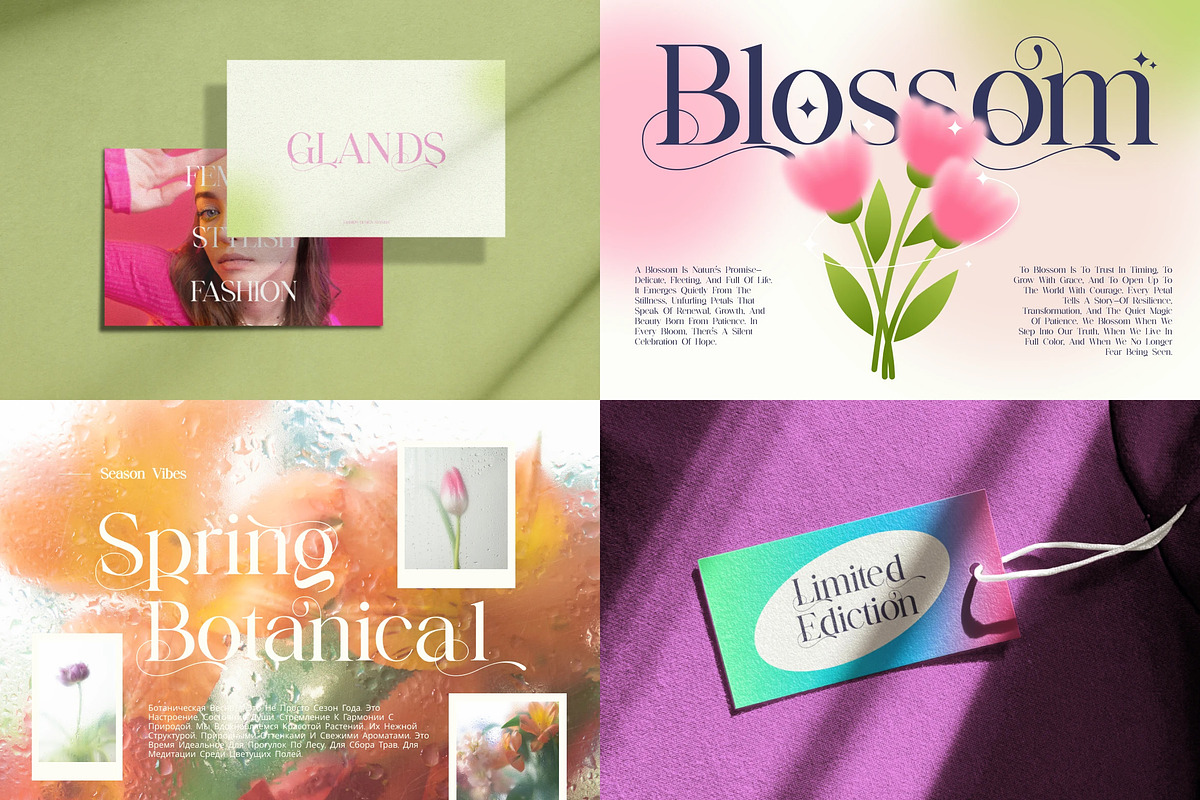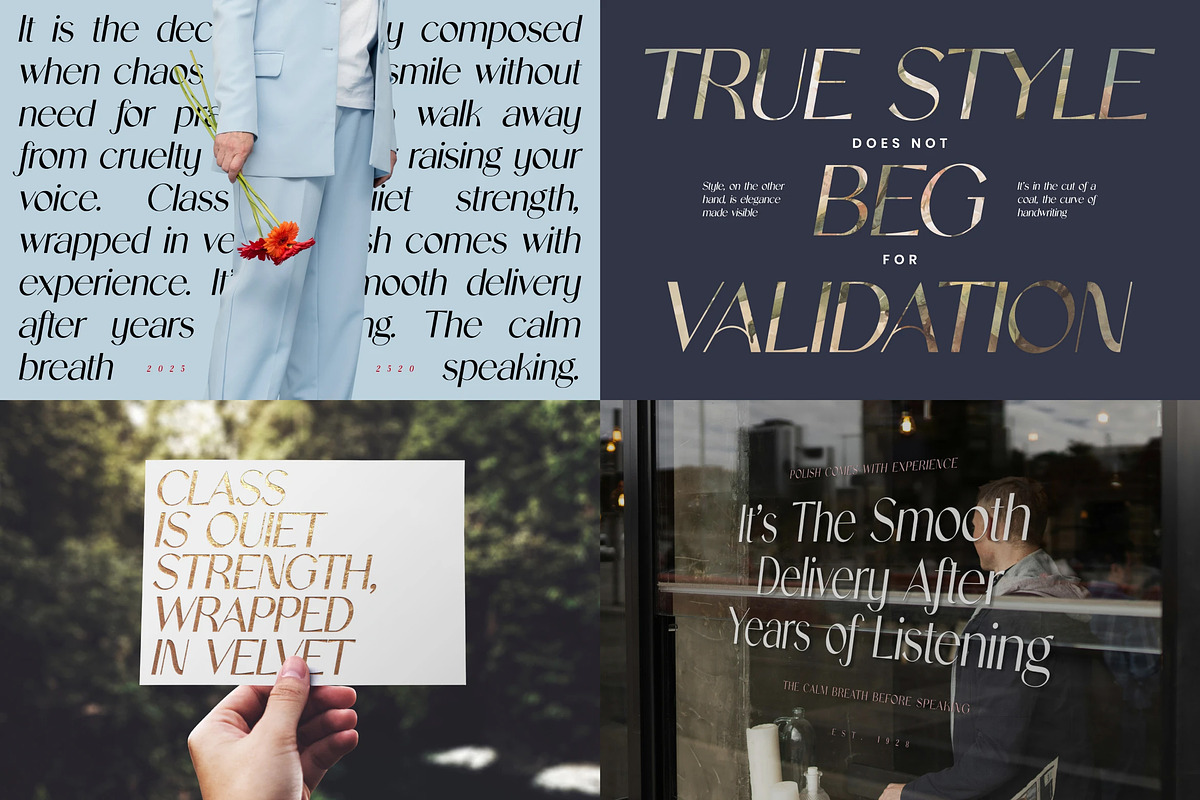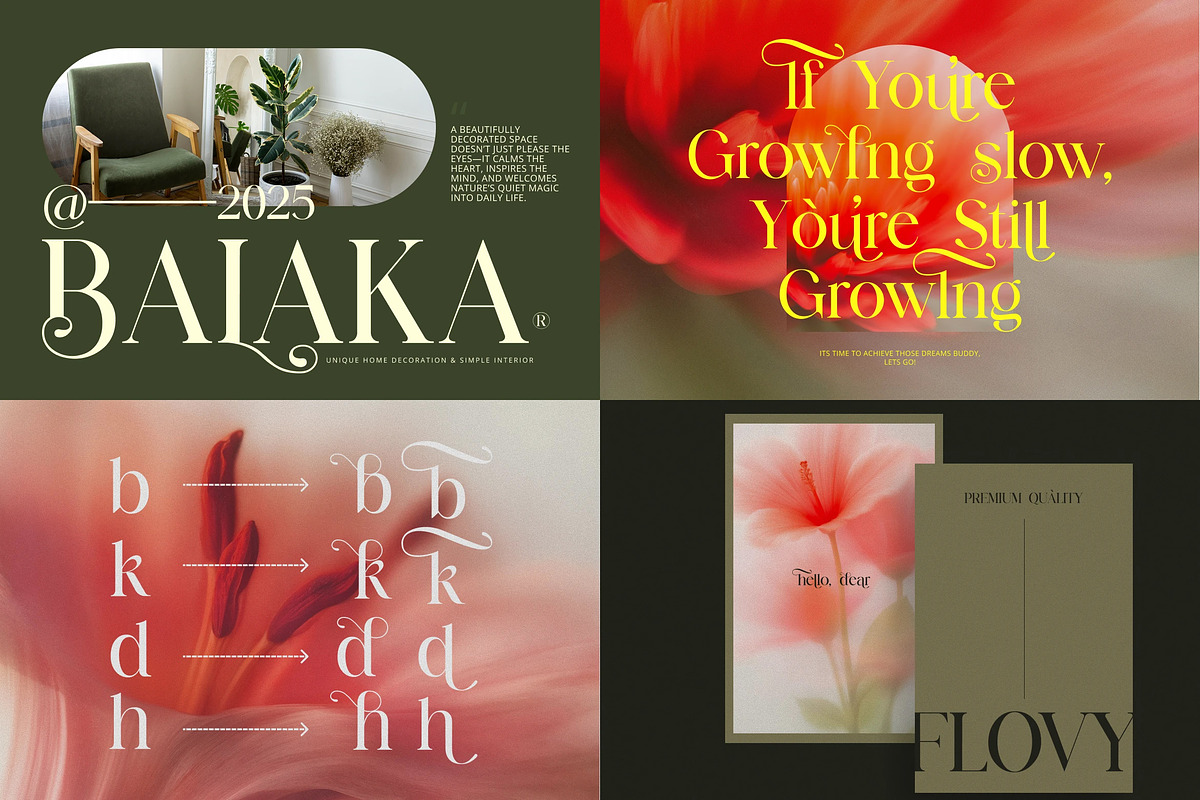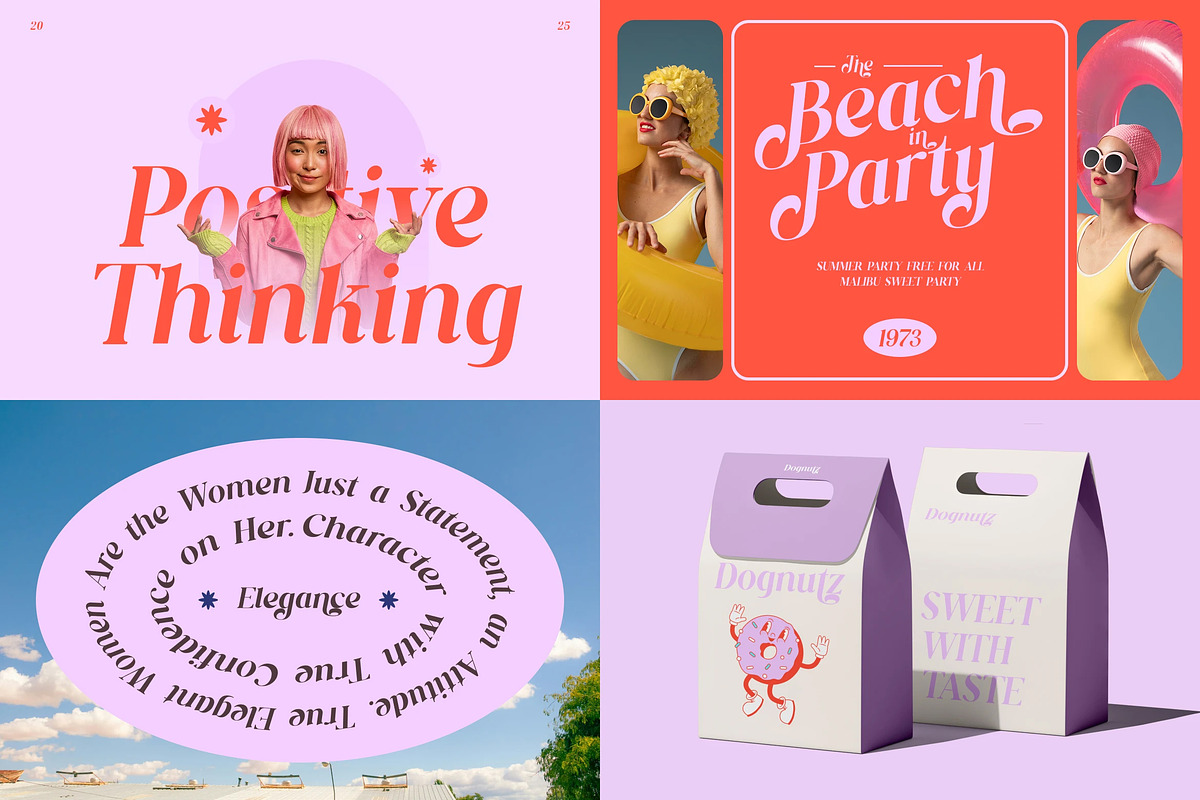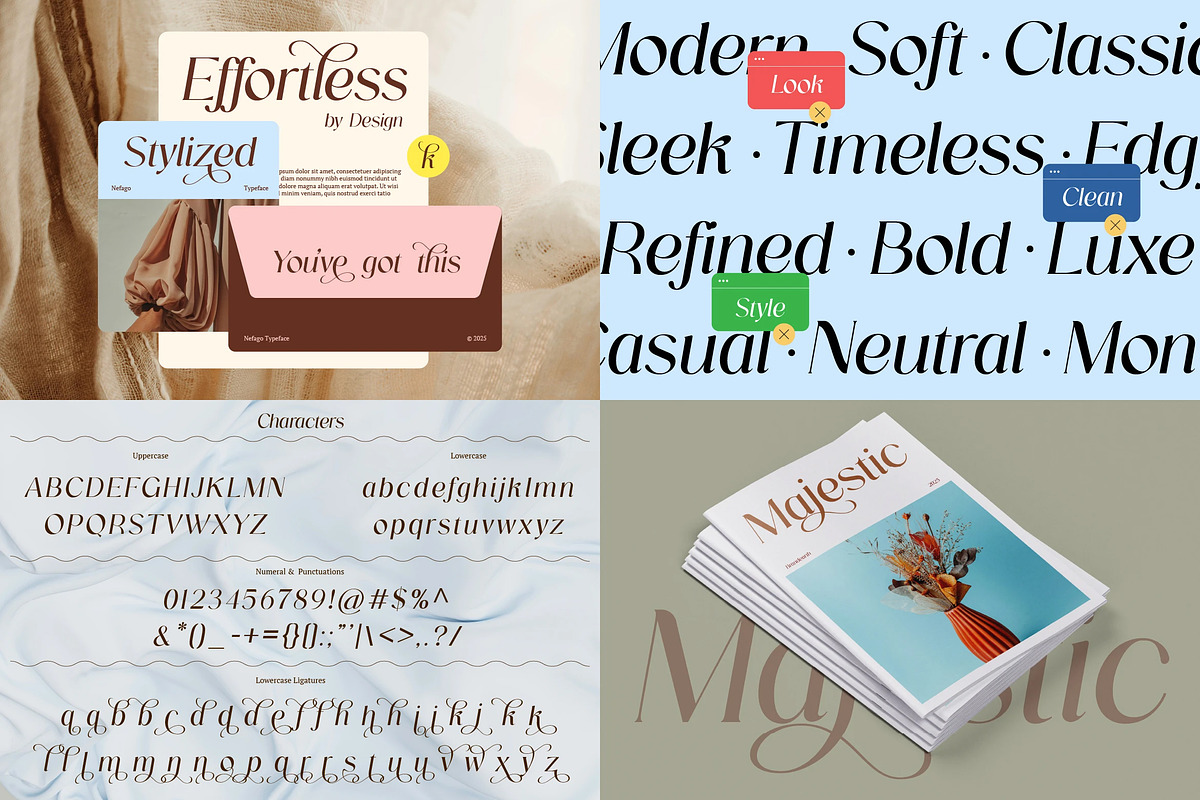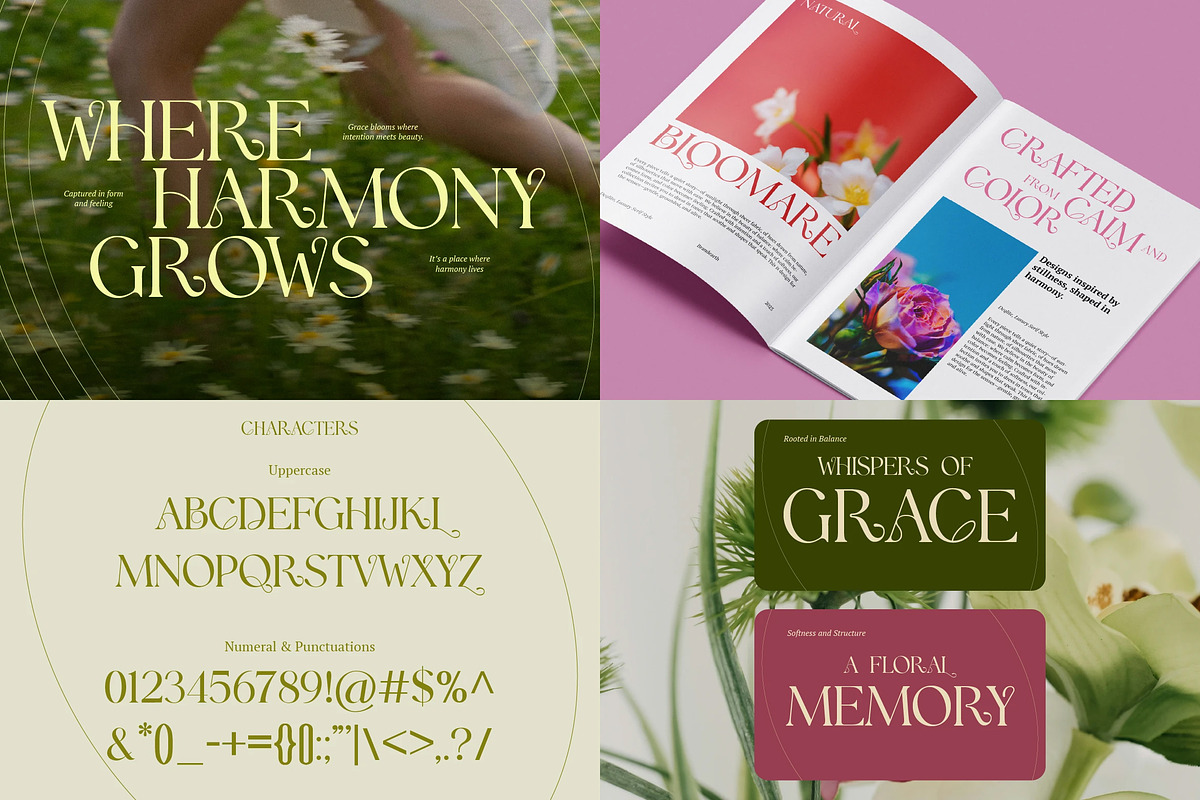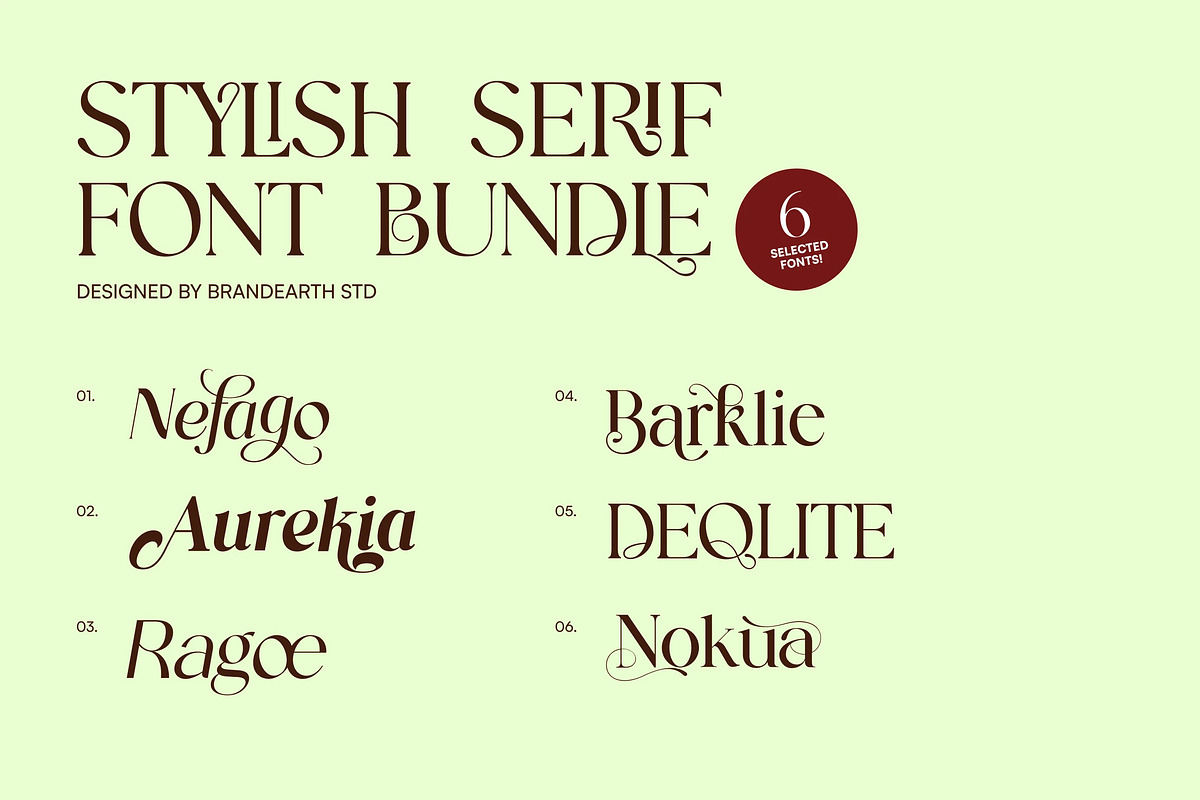
Stylish Serif - 6 Font Bundle
Stylish Serif is a curated collection of six sophisticated serif typefaces, each bringing its own distinct personality while sharing a common thread of elegance and refinement. From the botanical romance of Nokua to the bold editorial confidence of Aurekia, the calligraphic luxury of Nefago, the nostalgic charm of Barklie, the sharp italic sophistication of Ragoe, and the high-contrast drama of Deqlite—this bundle captures a versatile range of moods spanning romantic, expressive, vintage, and luxurious. Together, these six fonts form a complete toolkit for designers who want variety without sacrificing quality.
The letterforms across this collection range from delicate high-contrast strokes and graceful swashes to bold flowing curves and dramatic terminals. Each typeface carries its own rhythm—some poetic and floral, others confident and fashion-forward—giving you the flexibility to match the perfect font to your brand's voice. Elegant ligatures, decorative alternates, and refined transitions are woven throughout, ensuring every word feels intentional and beautifully composed.
With its blend of classic serif structure and modern editorial styling, Stylish Serif bridges the gap between timeless typography and contemporary design trends. It provides the versatility to move seamlessly between luxury branding, wedding stationery, fashion editorials, and heartfelt personal projects—making it ideal for logo design, magazine layouts, perfume and beauty packaging, and premium brand identities.
Fonts Included in This Bundle
Nokua – Graceful floral serif with botanical flair and delicate contrast.
Aurekia – Bold, expressive serif with fashion-forward confidence.
Nefago – Romantic serif with calligraphic swashes and editorial elegance.
Barklie – Nostalgic serif with subtle script-style calligraphic accents.
Ragoe – Sharp italic serif with refined, high-end sophistication.
Deqlite – High-contrast serif with dramatic flourishes and ornate charm.
Main Features
Ligatures & Alternates
Numerals & Punctuations